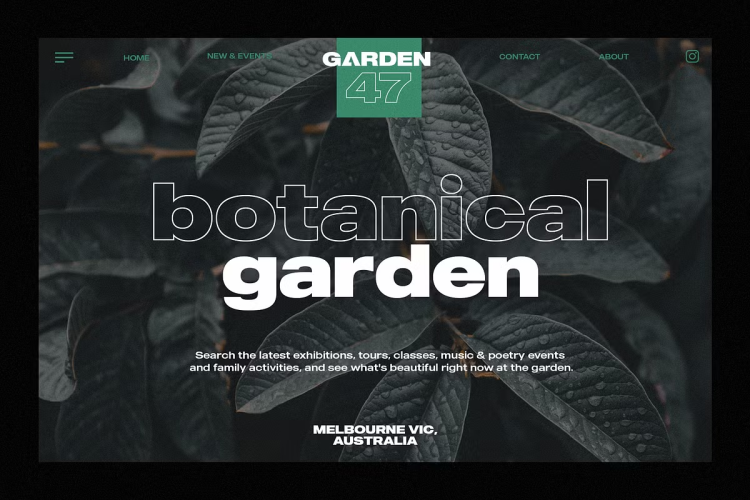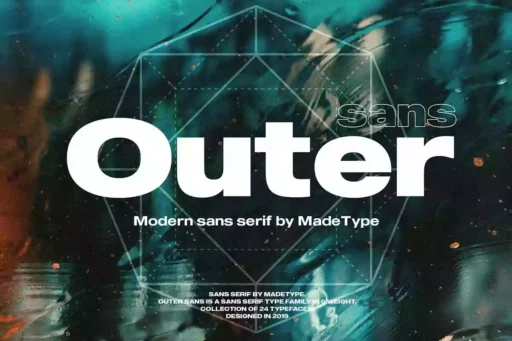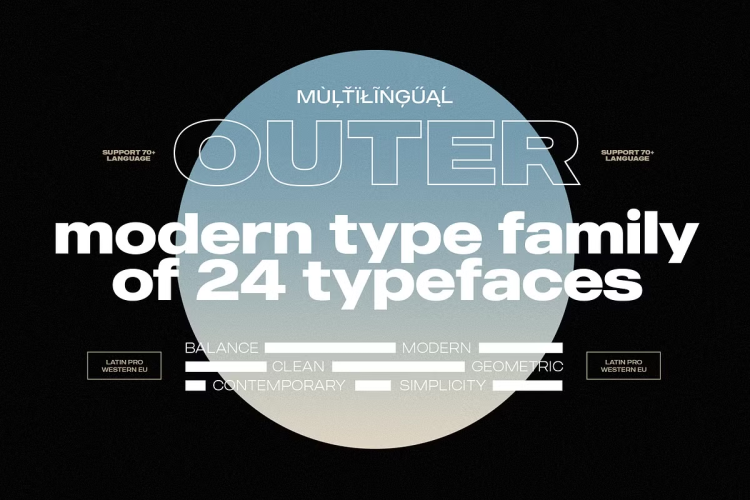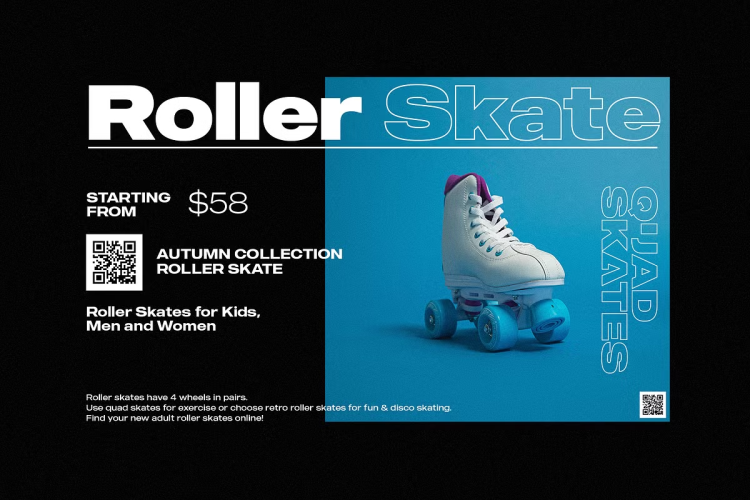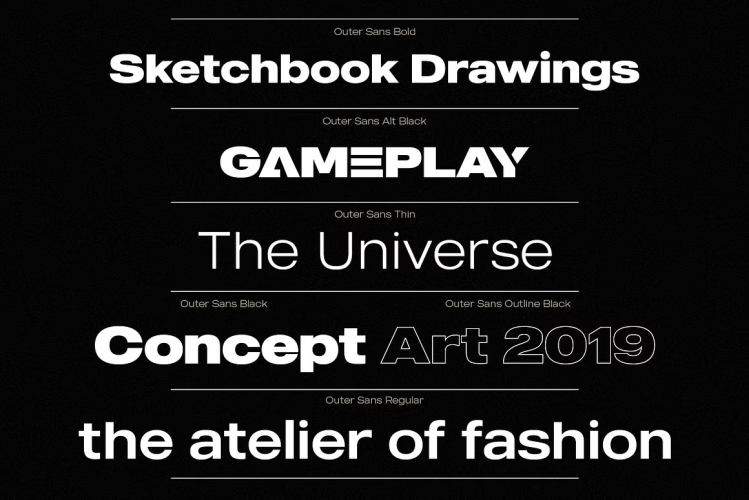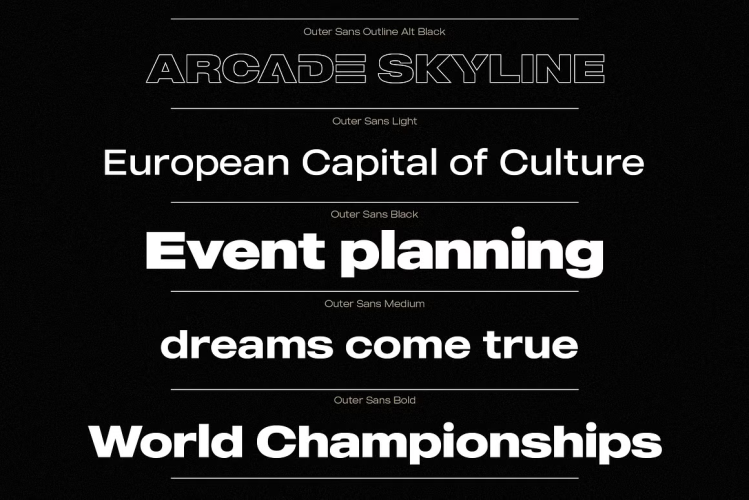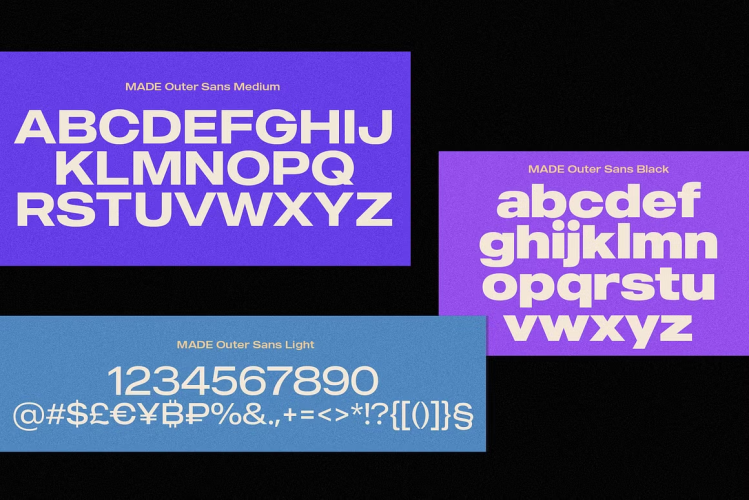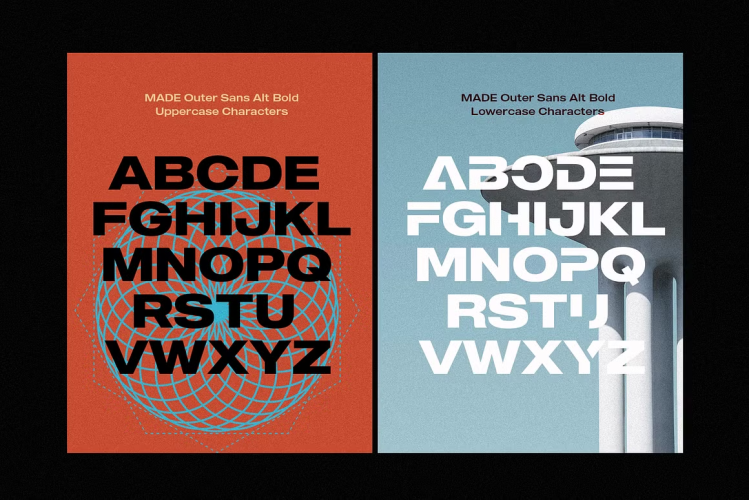
MADE Outer Sans Font
MADE Outer Sans is a new modern sans serif font family by MadeType foundry. This font is extremely useful when working on a variety of designs as it provides a professional and modern appearance. From fashion design projects, elegant invitation designs or unique music covers, MADE Outer Sans is an ideal typeface that delivers both style and legibility.
This font type is perfect for use in game posters, cinema promotions or even book covers as it gives a fresh and dynamic feel. It is equally good for magazines as well, giving a neat and elegant look when coupled with high quality content.
When it comes to branding and logos, MADE Outer Sans offers a contemporary and minimal design that can be used to come up with great brands and logos. Photographers can also apply this font to make their portfolio and advertisements look more fashionable.
Where MADE Outer Sans Font works best
MADE Outer Sans Font stays legible at small sizes, which makes it a strong choice for navigation, buttons and dashboards in web design and app interfaces.
Clean sans serifs like MADE Outer Sans Font are the default language of SaaS, fintech and product branding.